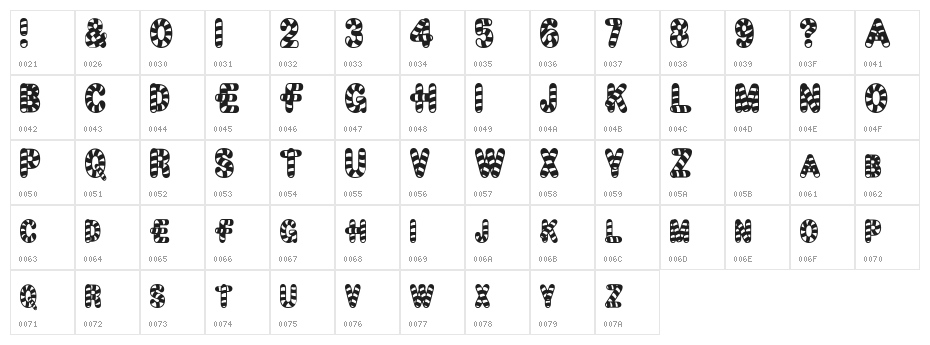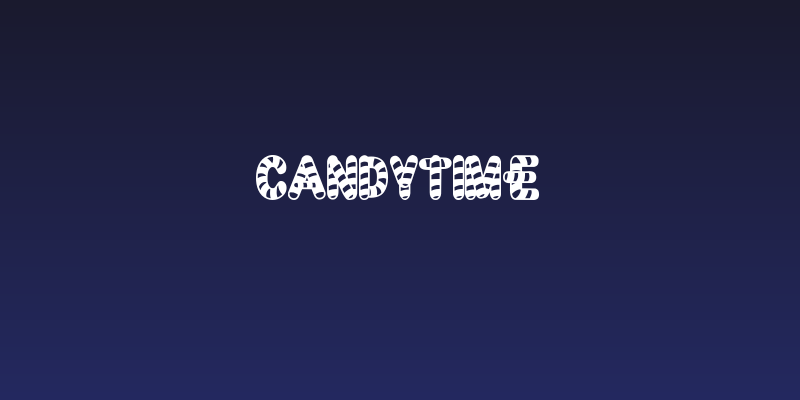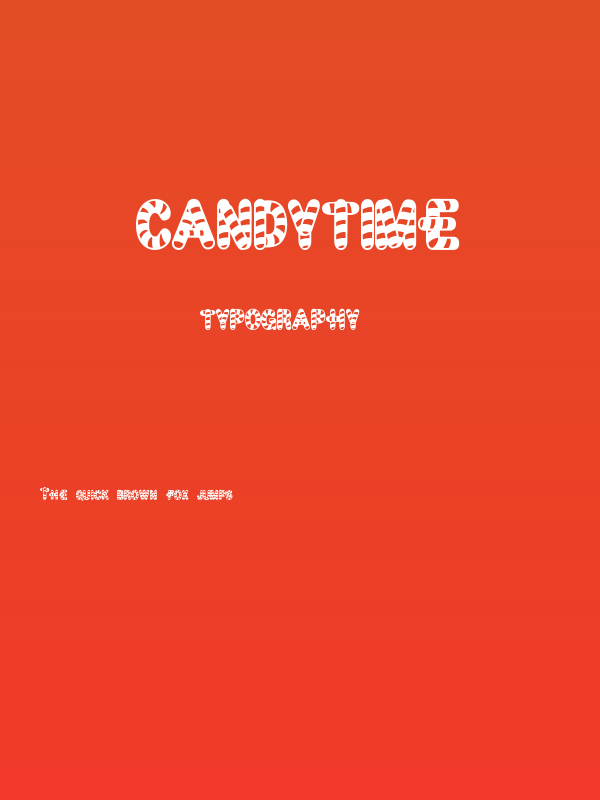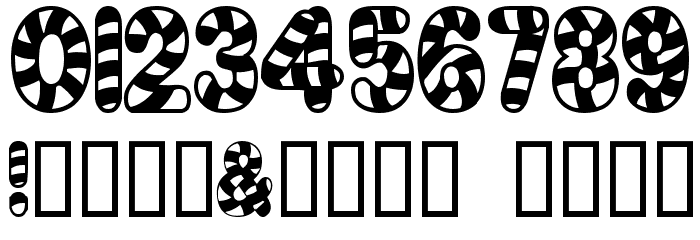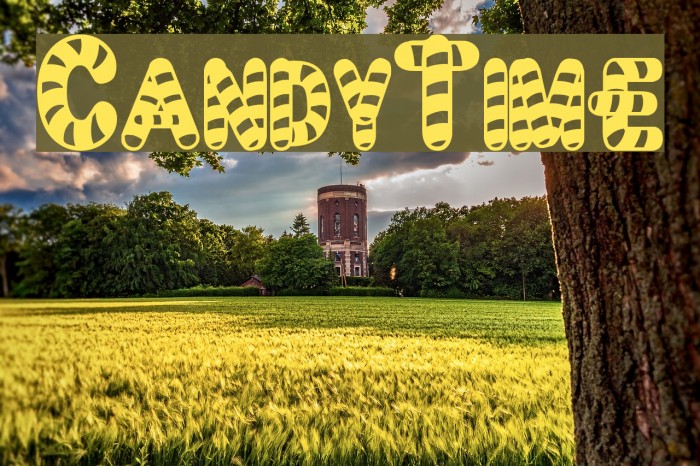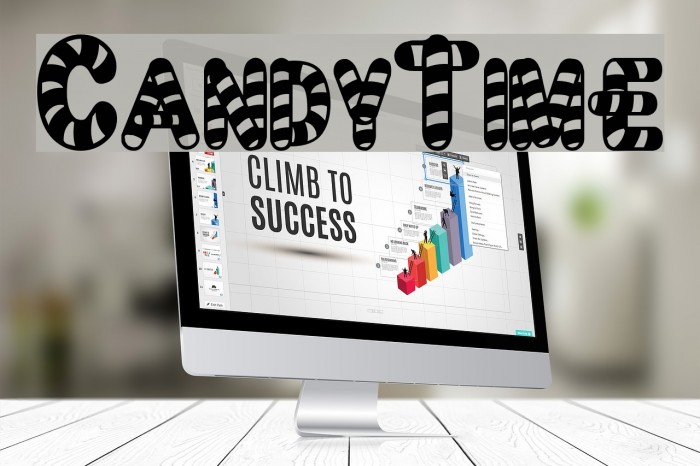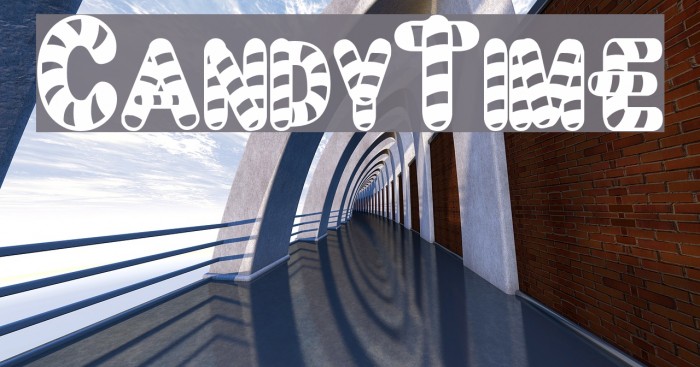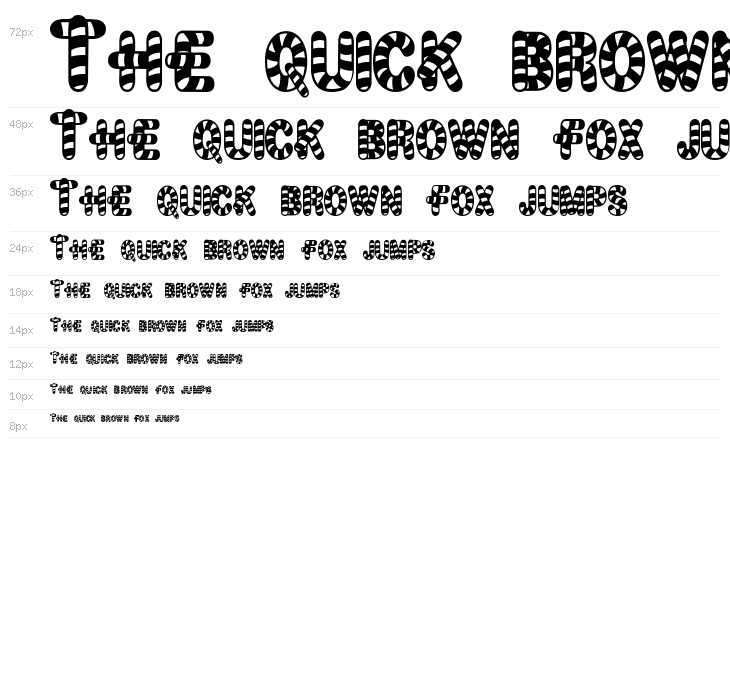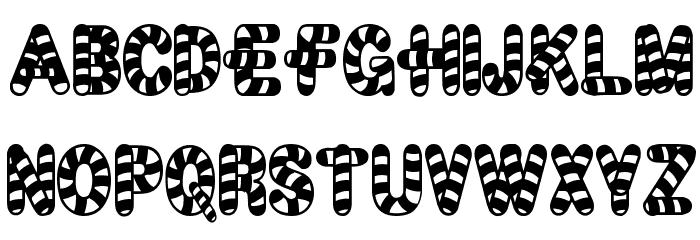
CandyTime Font
CandyTime Description
This playful and whimsical font features bold, rounded characters with a candy cane stripe pattern. The letters are designed with a consistent thickness, giving them a uniform appearance. The stripes alternate between black and white, creating a festive and eye-catching look. Each character is distinct yet cohesive, making it ideal for designs that require a fun and lively touch. The numbers and special characters follow the same striped pattern, ensuring consistency across all elements. This font is perfect for holiday-themed projects, children's materials, or any design that aims to convey a sense of joy and celebration.
| Overall Style | Playful, Festive |
| Use Case | Headlines, Logos, Decorative text |
| Proposed Projects | Ideal for holiday cards, children's party invitations, festive banners, and playful branding. |